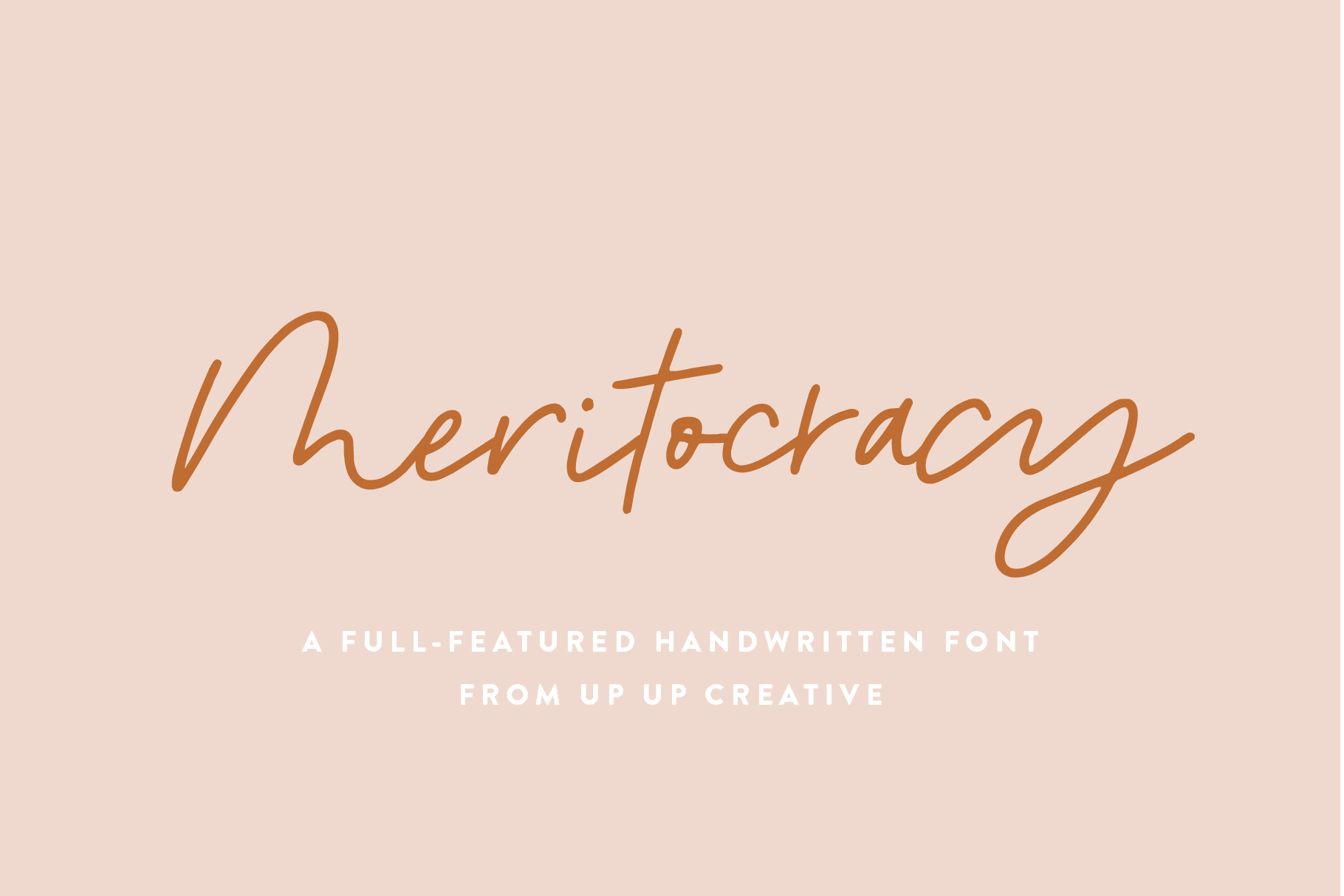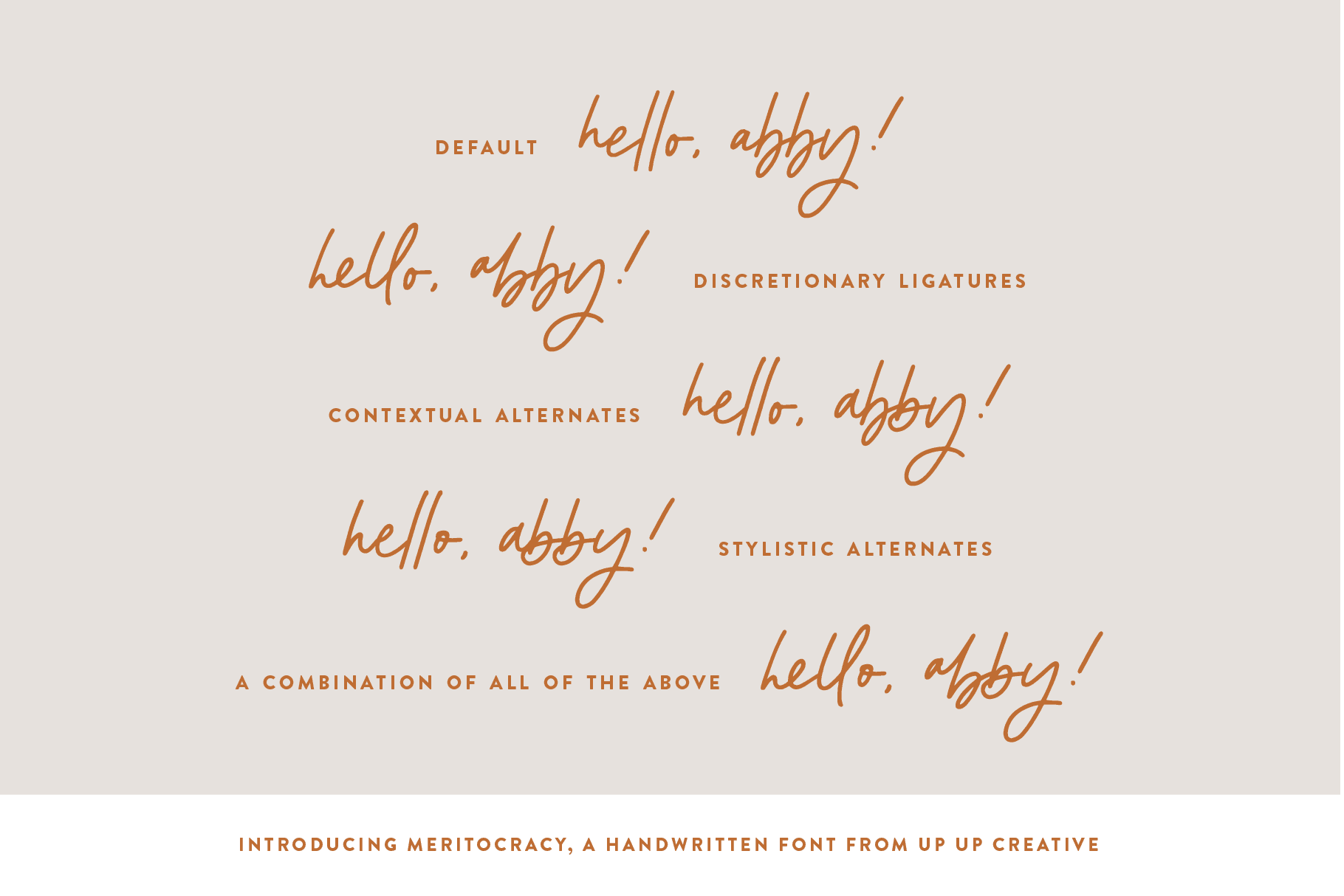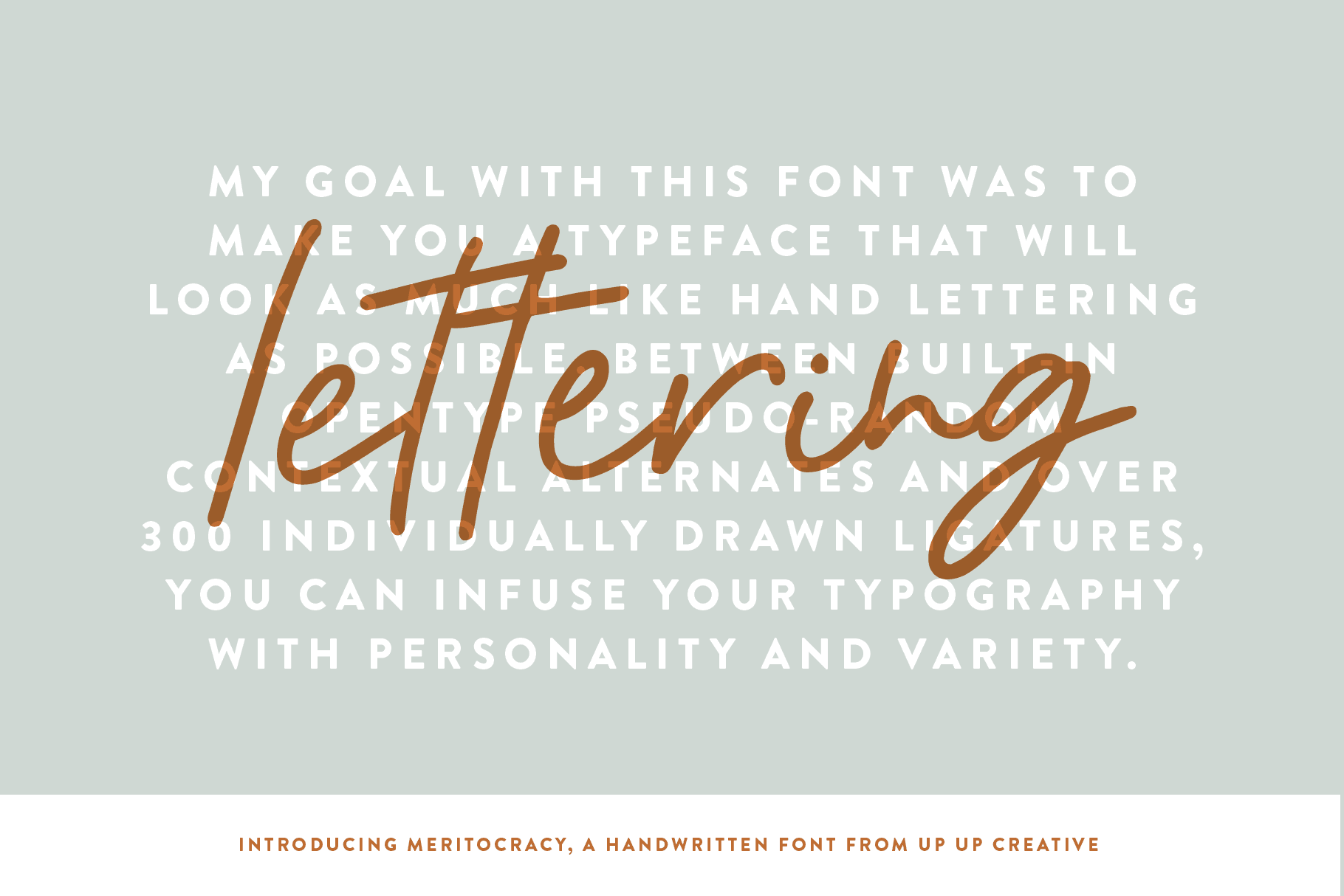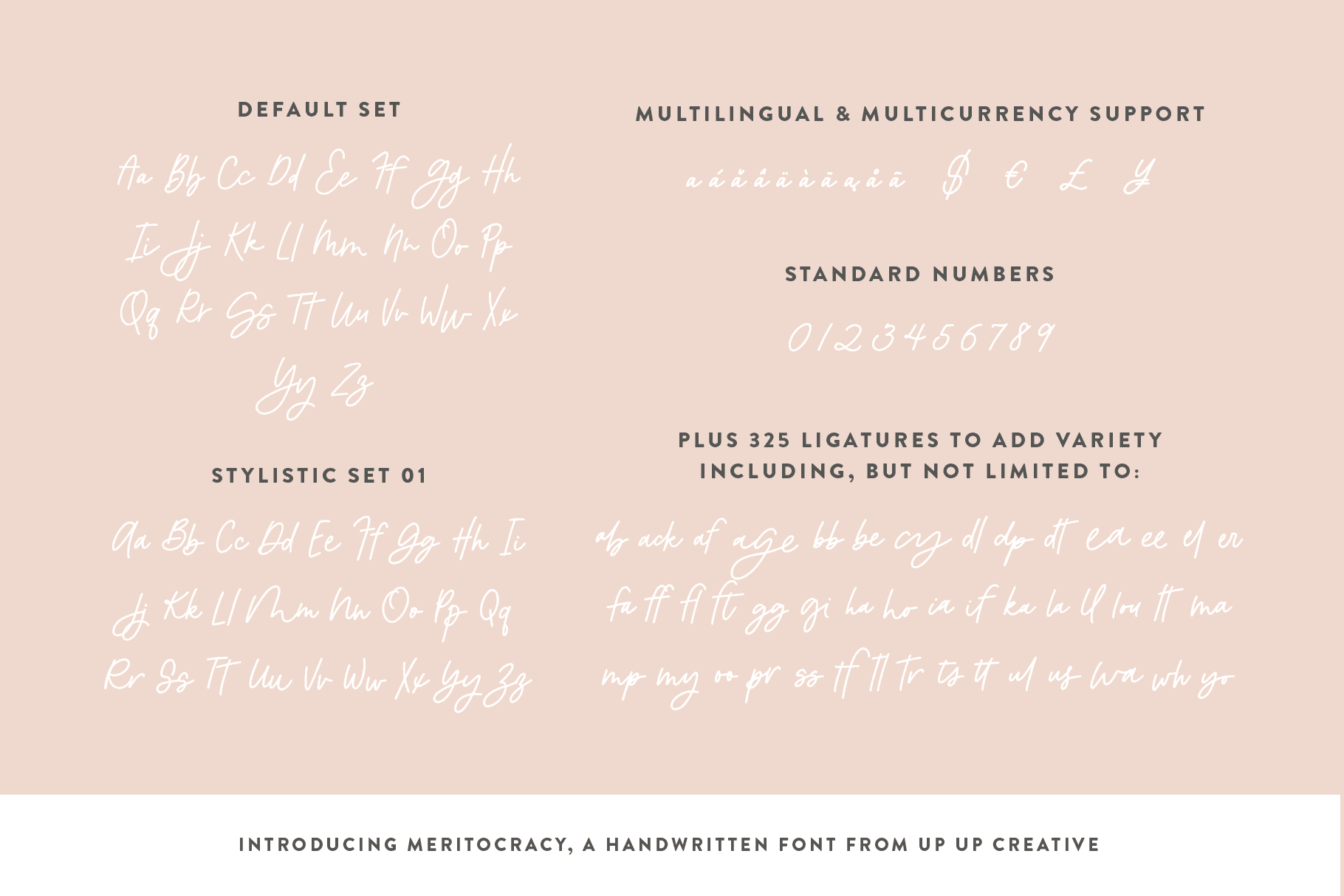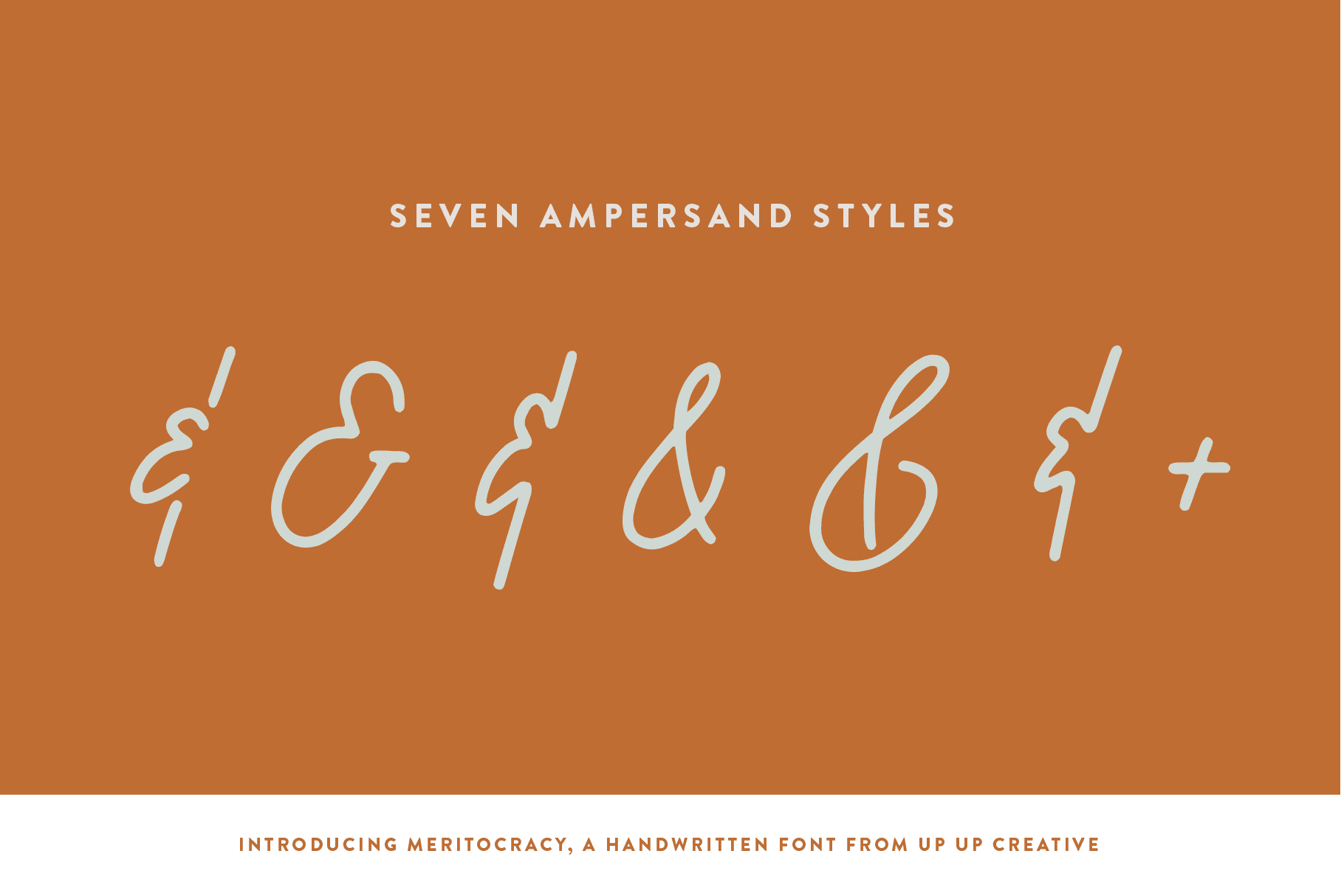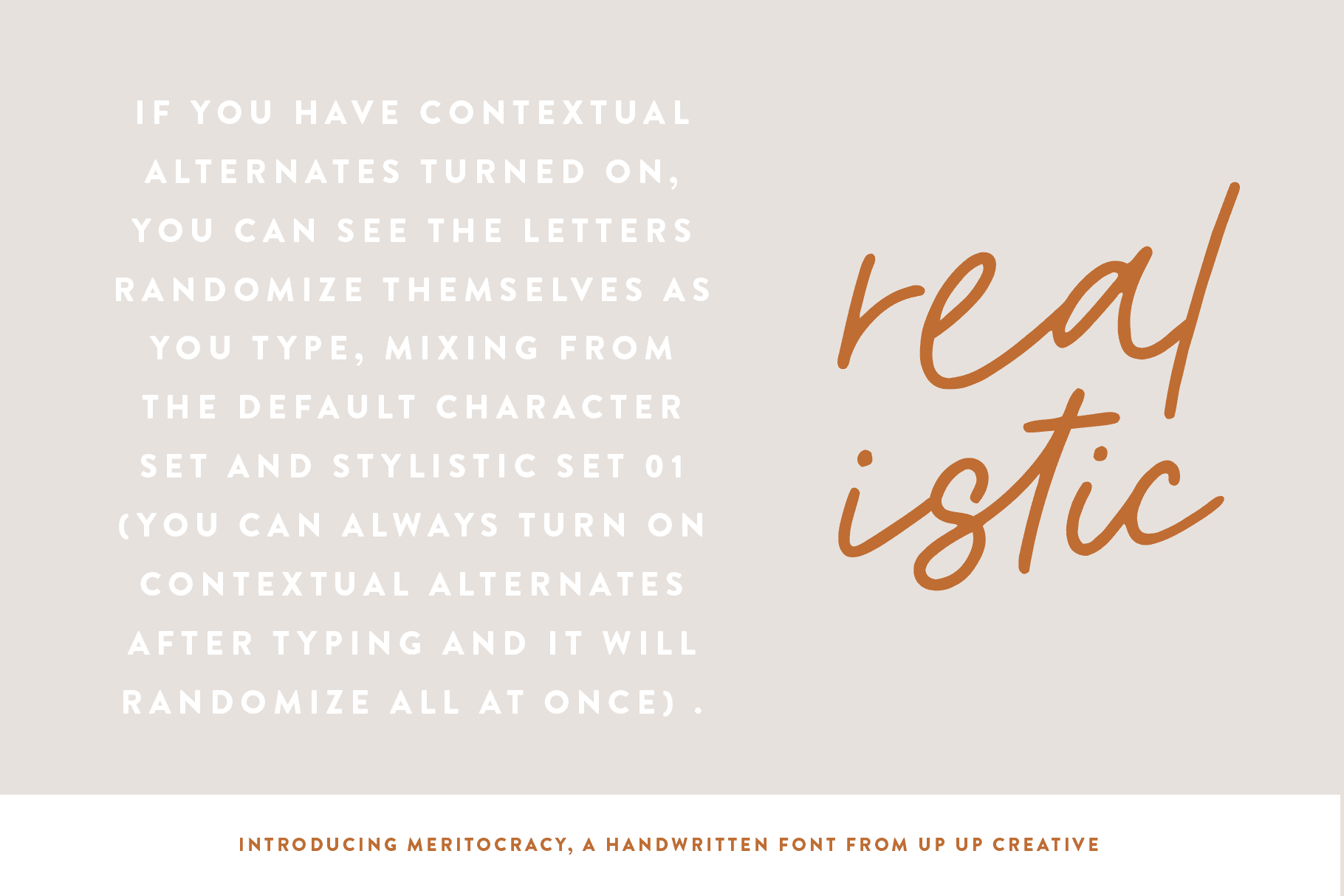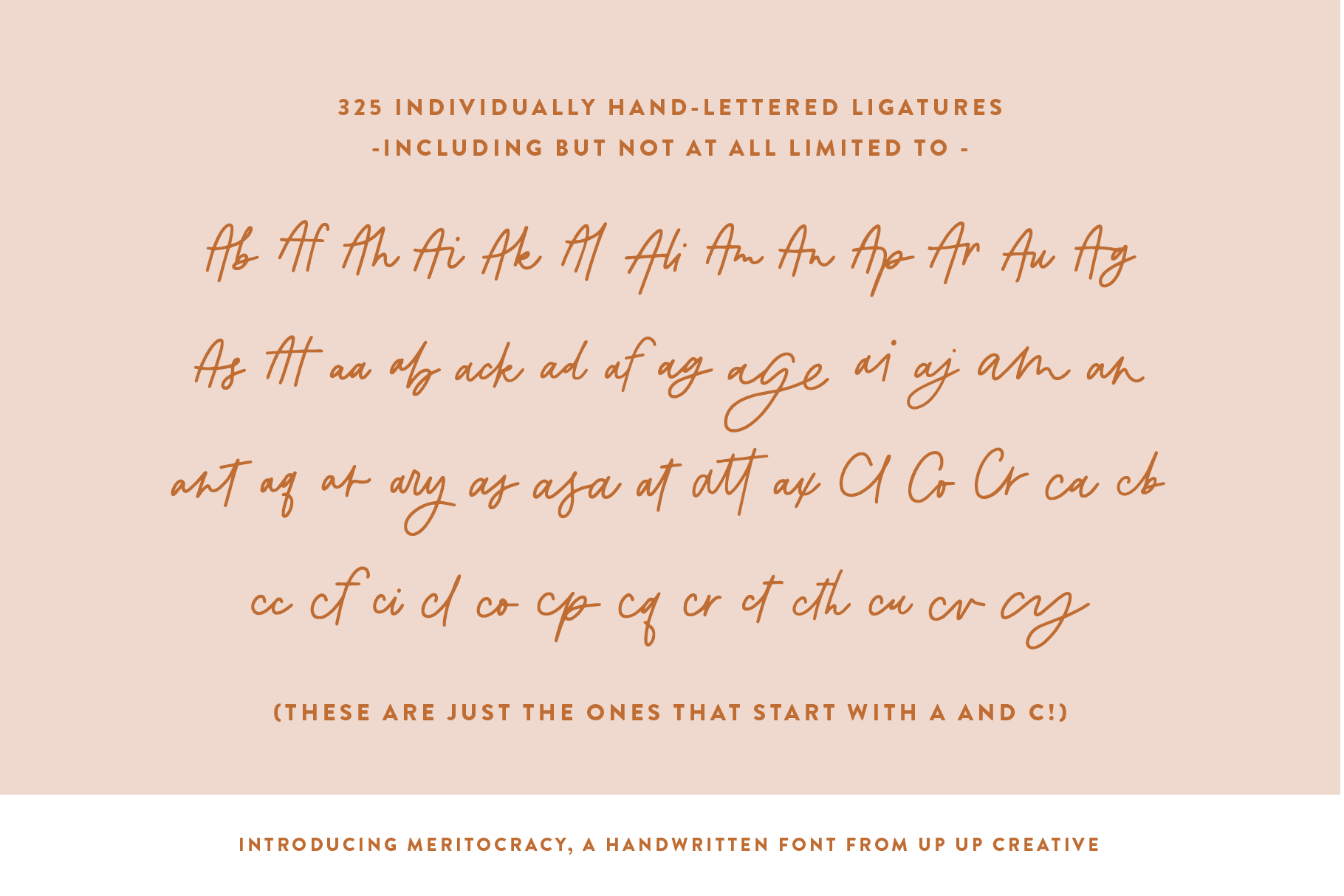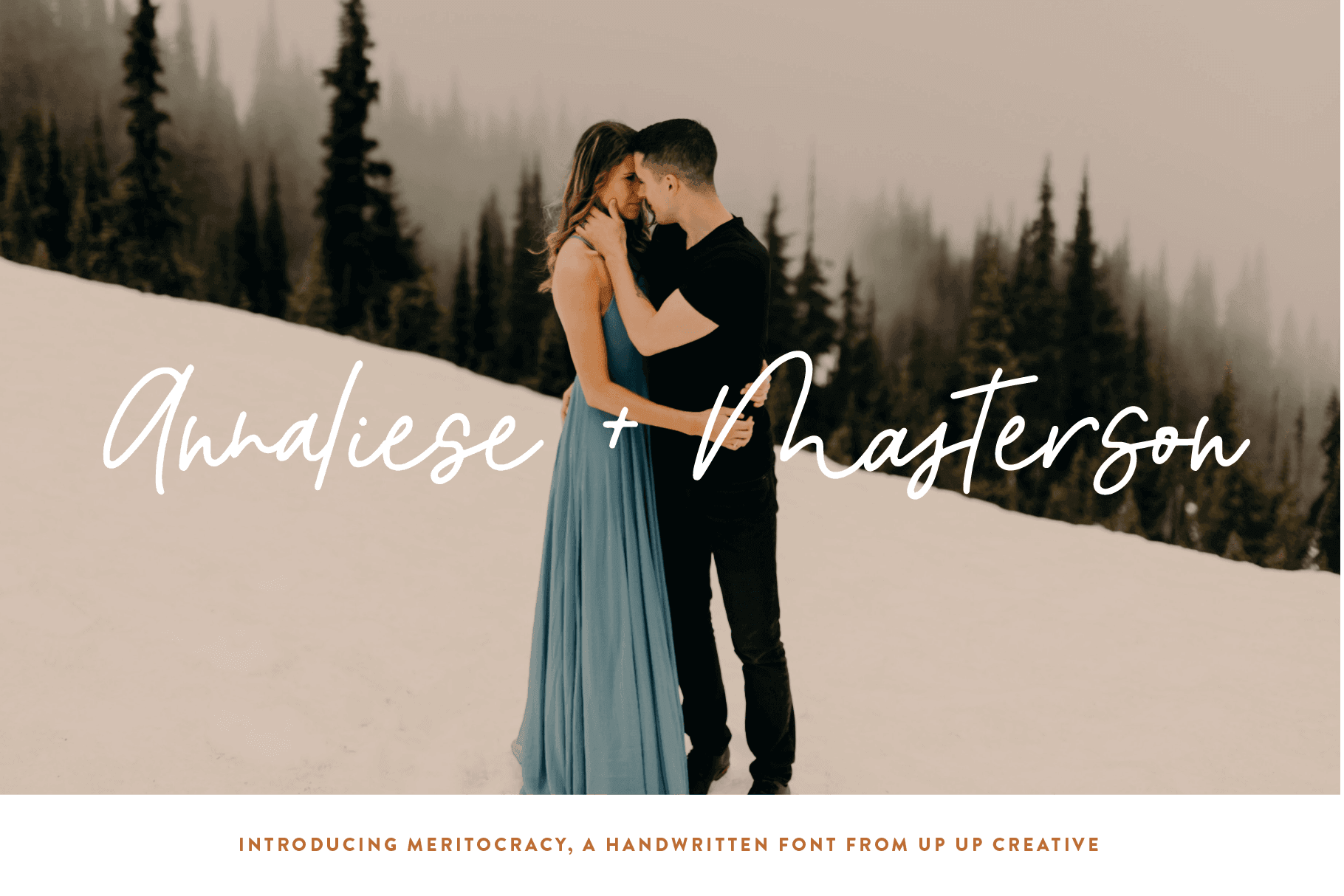
Meritocracy Script Font
Meritocracy is a full-featured handwritten font with tons of alternate characters and OpenType features. My goal with this font was to make you a typeface that will look as much like hand lettering as possible. Using the built-in OpenType pseudo-random contextual alternates and over 300 individually drawn ligatures, you can infuse your typography with personality and variety.
OpenType Features
- character variants
- contextual alternates ** Special Meritocracy-specific Note: If you are using OpenType-capable software like Adobe Illustrator, Photoshop, InDesign, or CorelDraw and you have contextual alternates turned on, you can see the letters randomize themselves as you type, mixing from the default character set and stylistic set 01. (You can always turn on contextual alternates after you have already typed your passage and it will randomize all at once, or you can choose to turn off contextual alternates and substitute specific glyphs yourself - I find that if I'm typing a word or two, I prefer to control the individual glyphs myself; if I'm typing a paragraph, I like to use the built-in randomness of the contextual alternates feature). See a little glimpse of this feature in action right here Note that this pseudo-randomization (aka contextual alternate feature) is ON by default in Apple's Pages app and OFF by default in Microsoft Word, but it can be turned on.
- standard and discretionary ligatures
- fractions
- localized forms (multi-language and multi-currency support)
- ordinals and superscripts
- stylistic alternates
- stylistic sets
Includes 336 ligatures
- Includes 934 glyphs
- 1 Style, 1 Weight